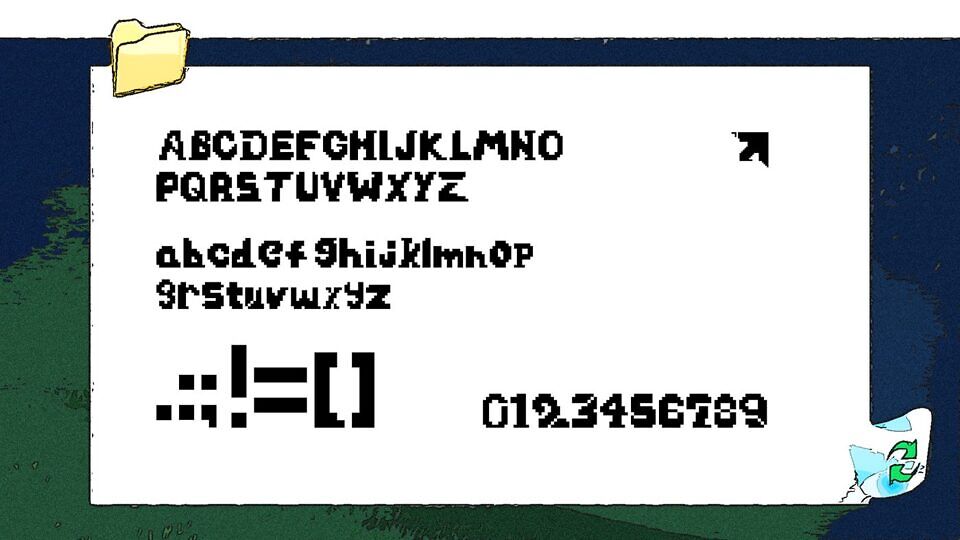
Domino is a pixel font that taps into the nostalgic vibe of early digital graphics. With its slightly uneven pixels and a rough, hand-crafted style, it recalls the charm of retro arcade games, lo-fi displays, and classic 8-bit adventures.